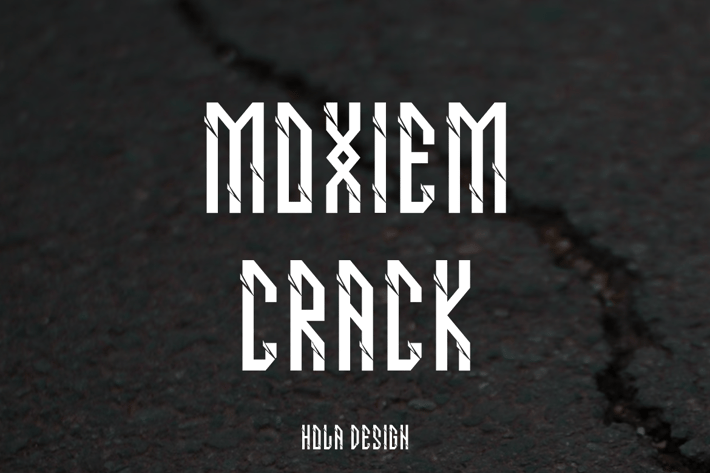
Moxiem Crack - Decorative Font
Moxiem Crack Font is unique . Ready to use for your design like labeling, movie sceen, poster, movie title, gigs, album covers, logos, and much more.